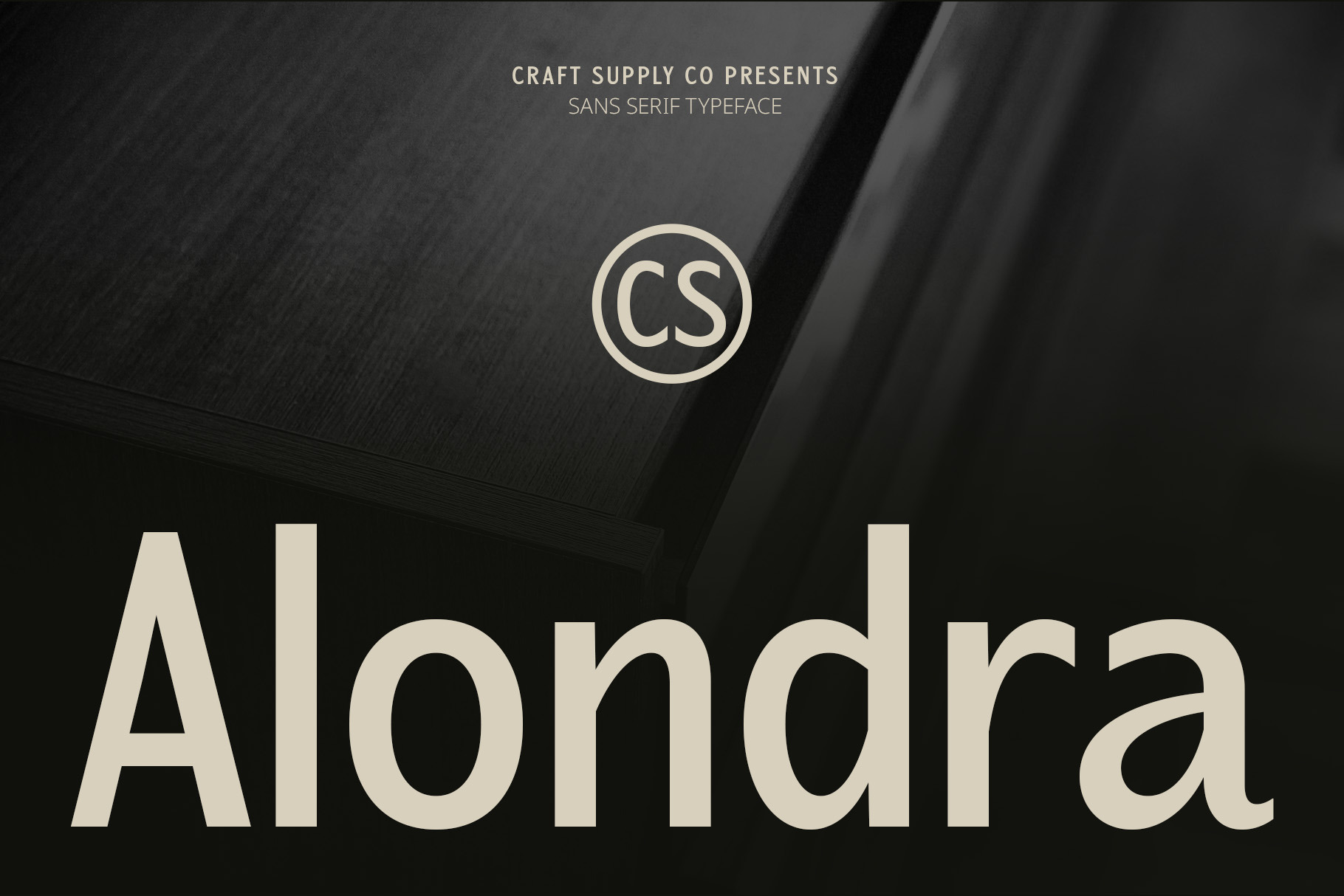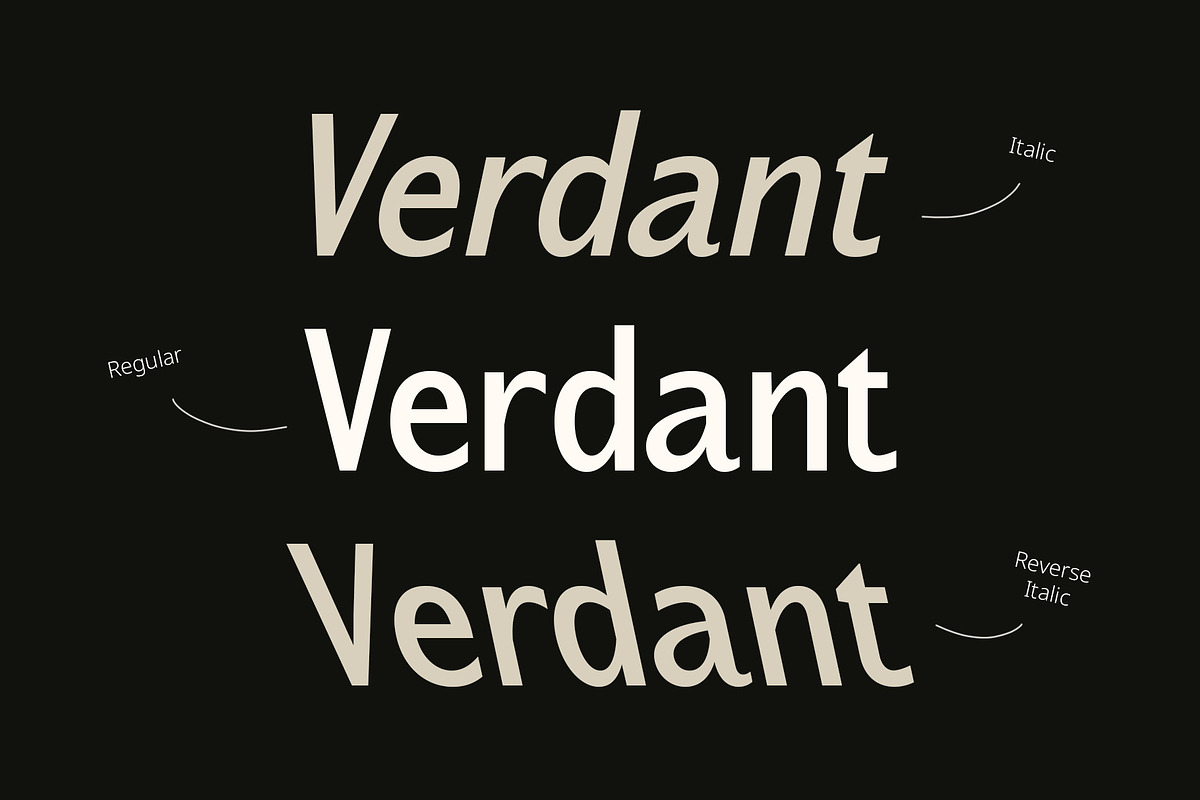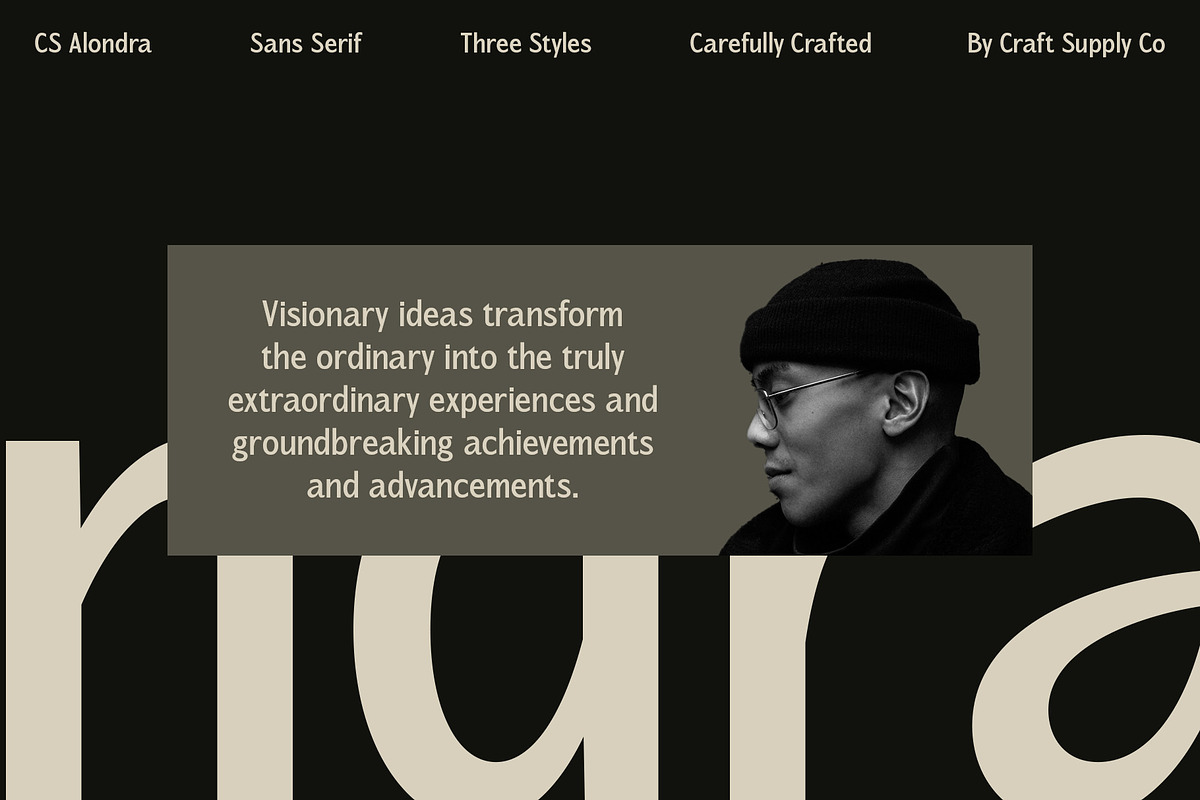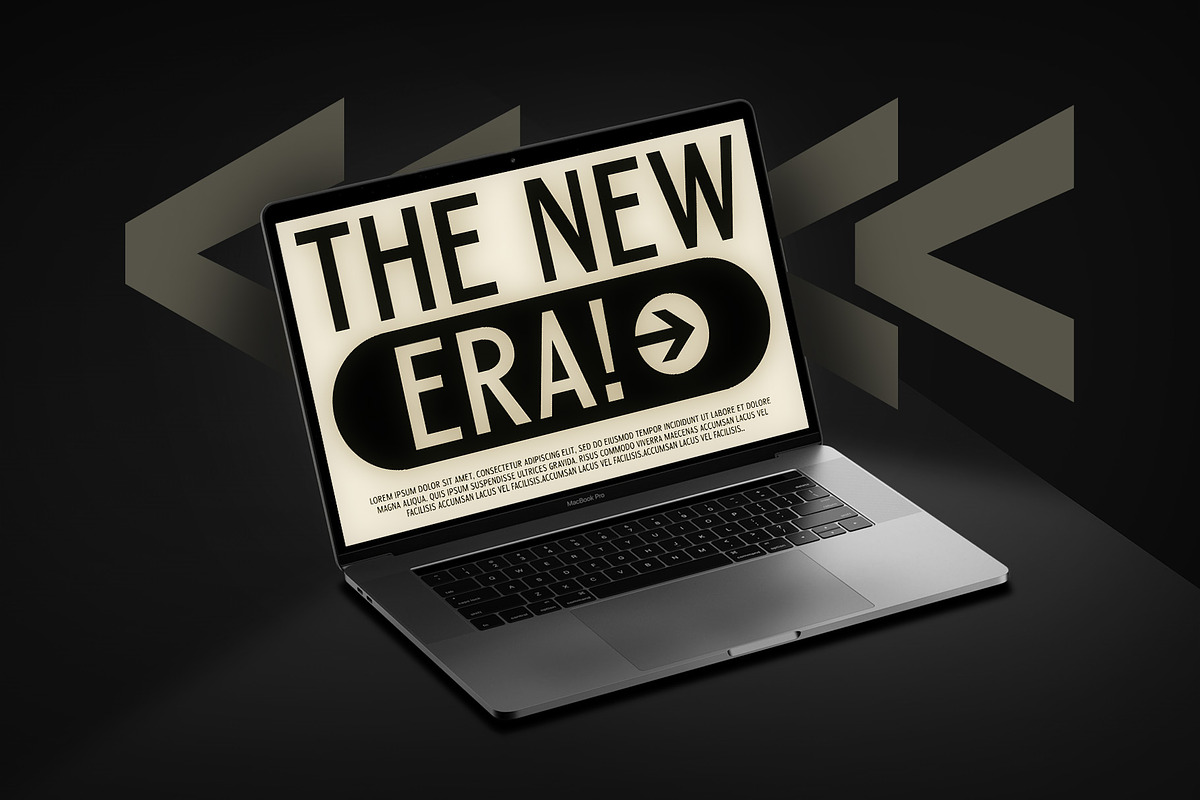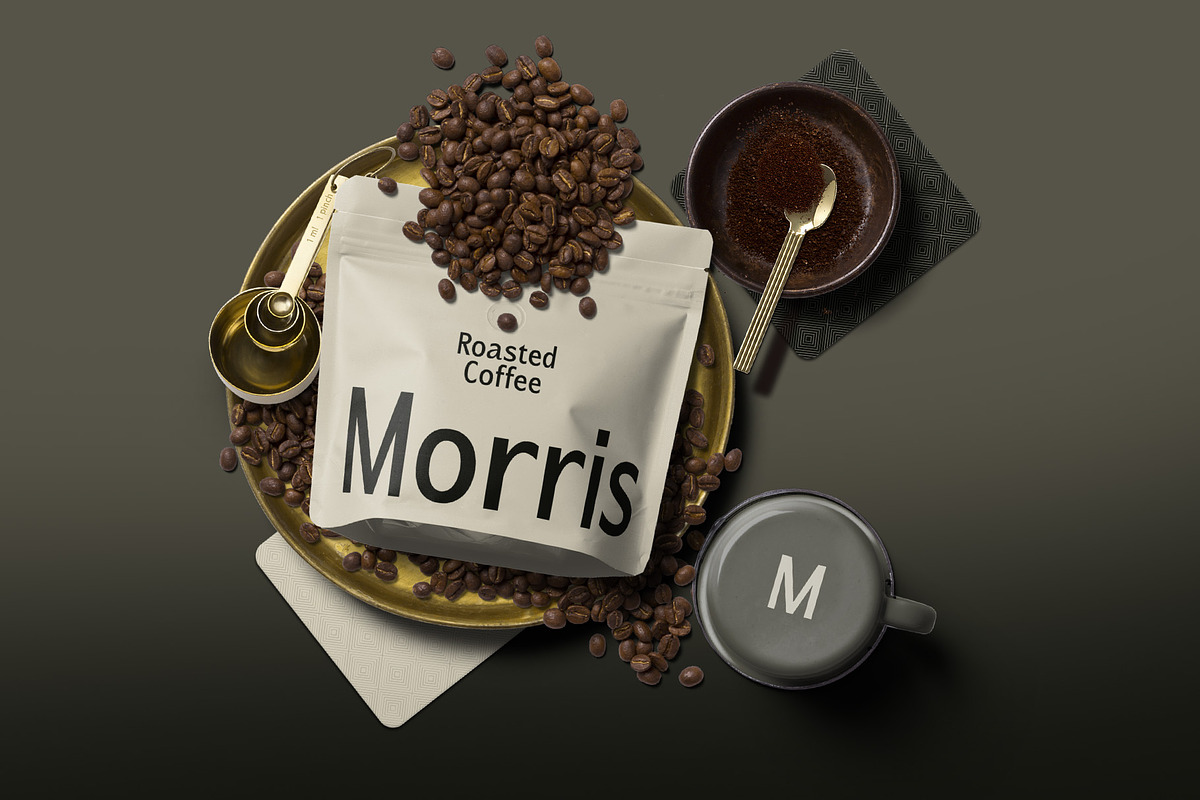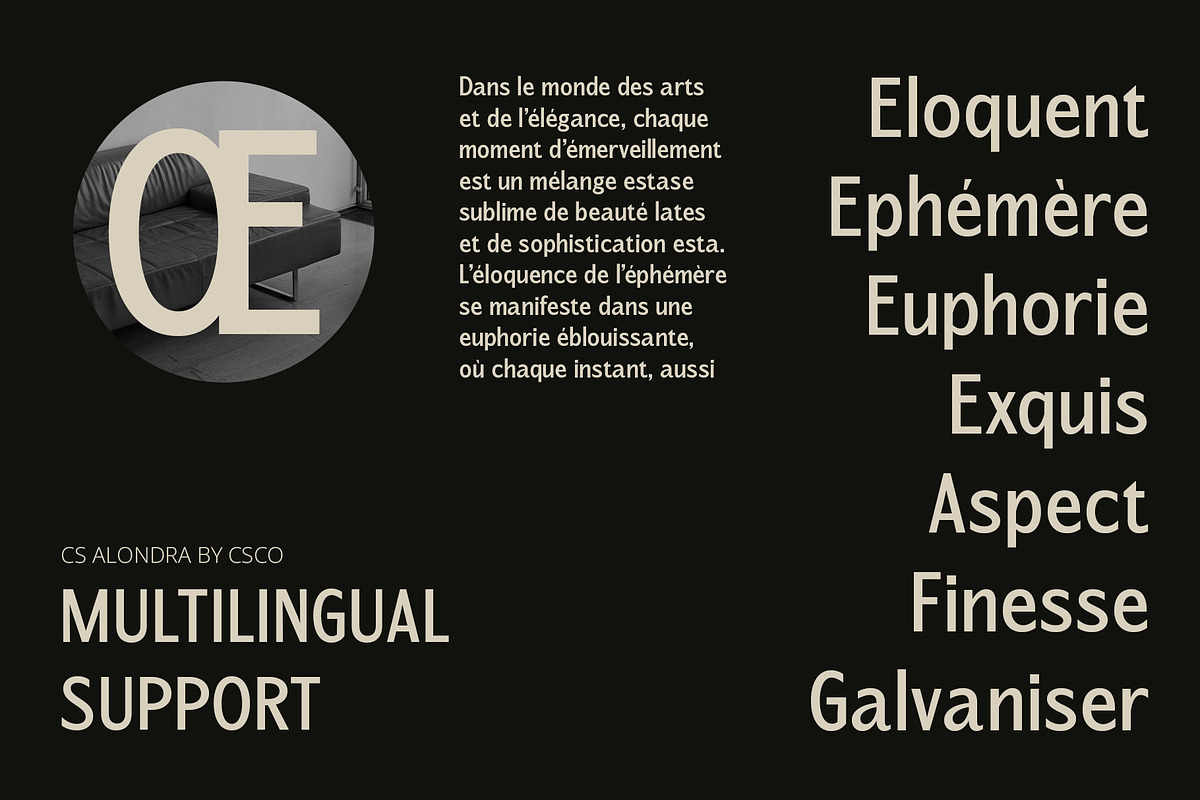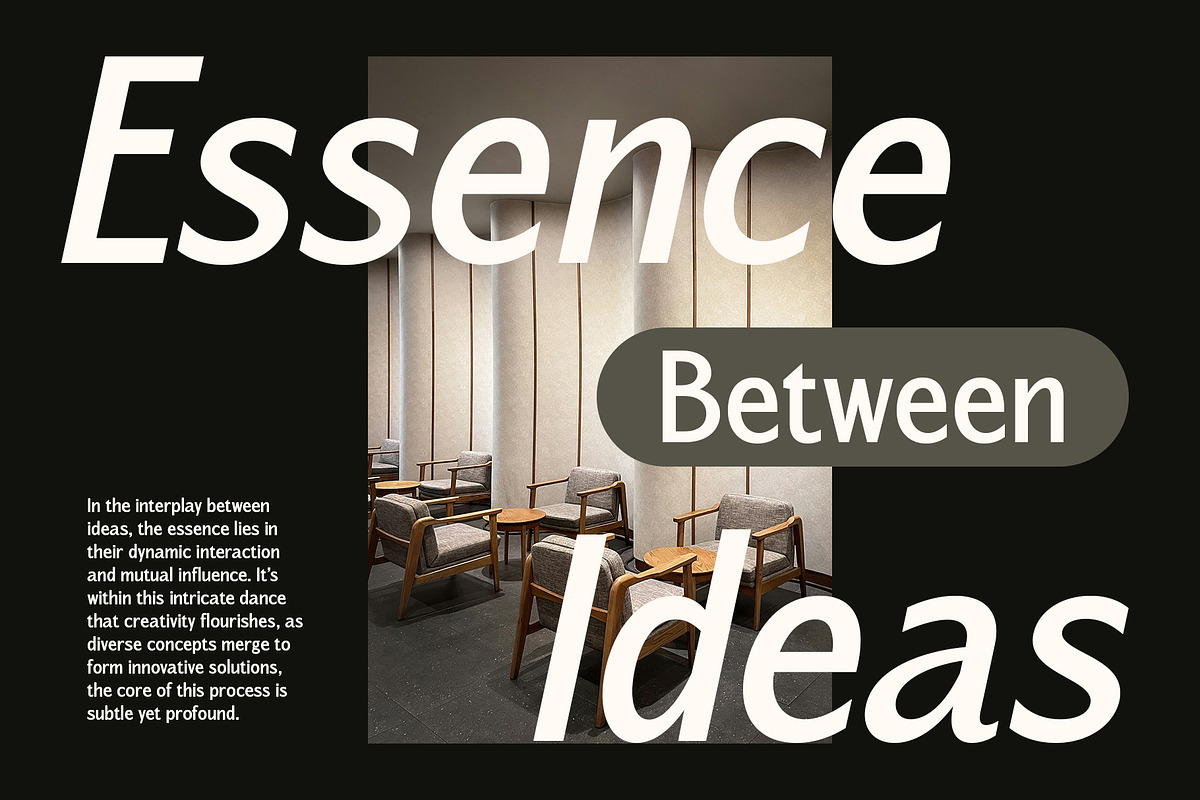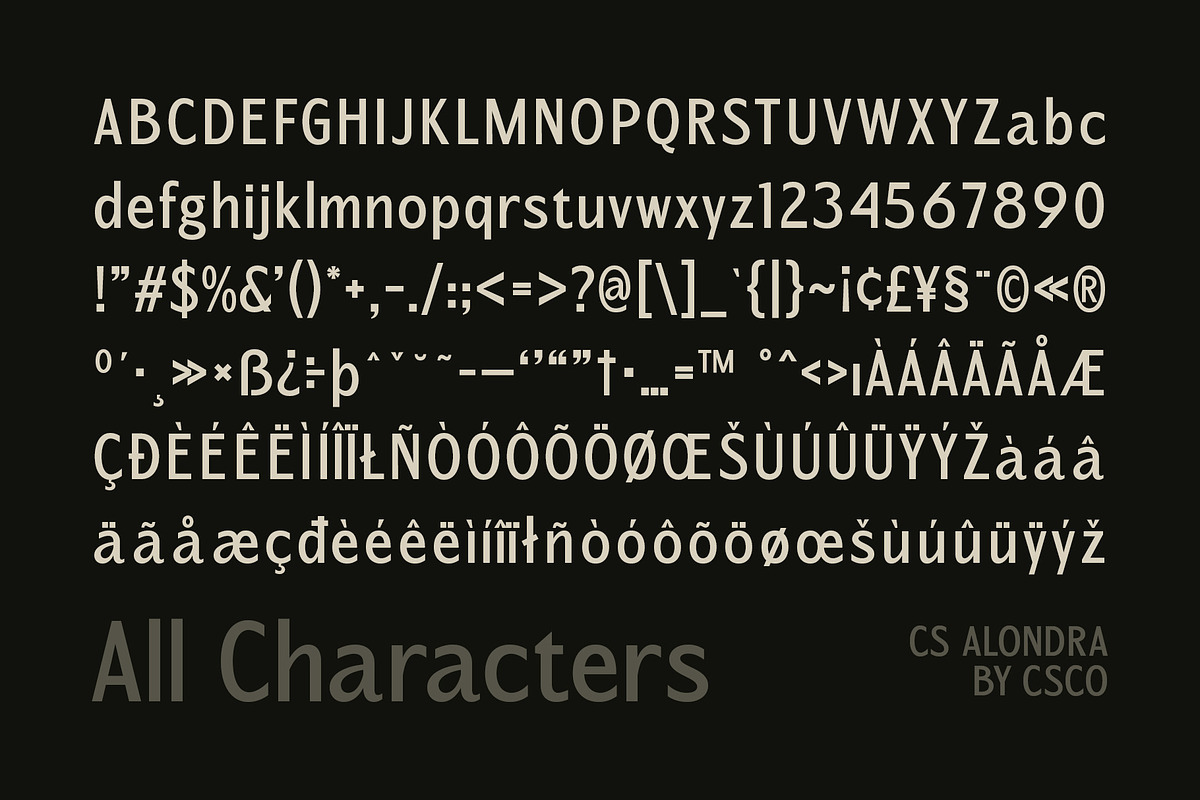
CS Alondra – Modern Font
CS Alondra – A Modern, Professional Font
Clean and Elegant Sans Serif Design CS Alondra is a modern sans serif font designed to convey a sleek, clean, and professional impression. Its simple lines and lack of decorative elements result in a minimalist yet sophisticated appearance, perfect for creating an easy-to-read and refined visual aesthetic.
Versatile for Corporate Branding and More With its straightforward design, CS Alondra offers high versatility across various applications. Whether used for corporate branding, marketing materials, or web design, this font adapts seamlessly to different mediums. Its clean look ensures professionalism, making it ideal for companies looking to establish a strong and contemporary visual identity.
Balanced Proportions for Modern Appeal The balanced proportions and varied thickness of CS Alondra provide an added layer of visual interest, giving it flexibility for diverse design styles. From sleek business presentations to modern product packaging, this font ensures both functionality and aesthetic appeal, making it a smart choice for today’s visual communication needs.
Perfect for Professional and Contemporary Projects CS Alondra excels in projects where clarity and sophistication are key. Its modern sans serif structure blends simplicity with elegance, offering designers the perfect tool for creating professional, polished, and contemporary designs that make an impact.
- CS Alondra Regular
- CS Alondra Italic
- CS Alondra Reverse Italic